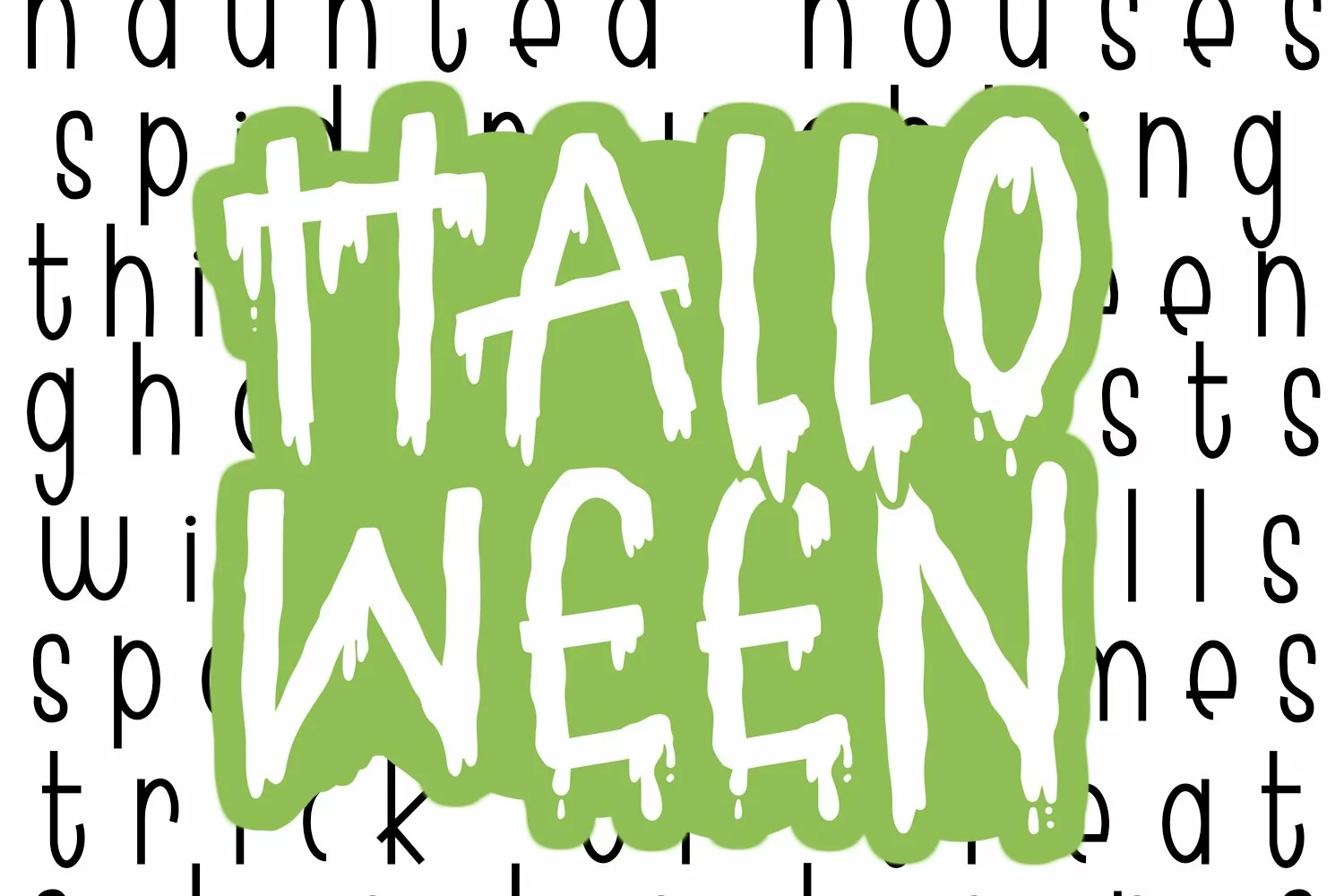
A fun, spooky, & gross looking hand lettered font has arrived for your Halloween season! This font can be used for all kinds of things like invitations, digital designs, classrooms, social media, shirts, mugs, tumblers, wood signs, and so much more!
**This font only includes capital letters, MULTILINGUAL SUPPORT , and limited punctuation - {{period (slime splat), exclamation, question, ampersand, comma, quote single}}
**Includes most accents for multilingual support.